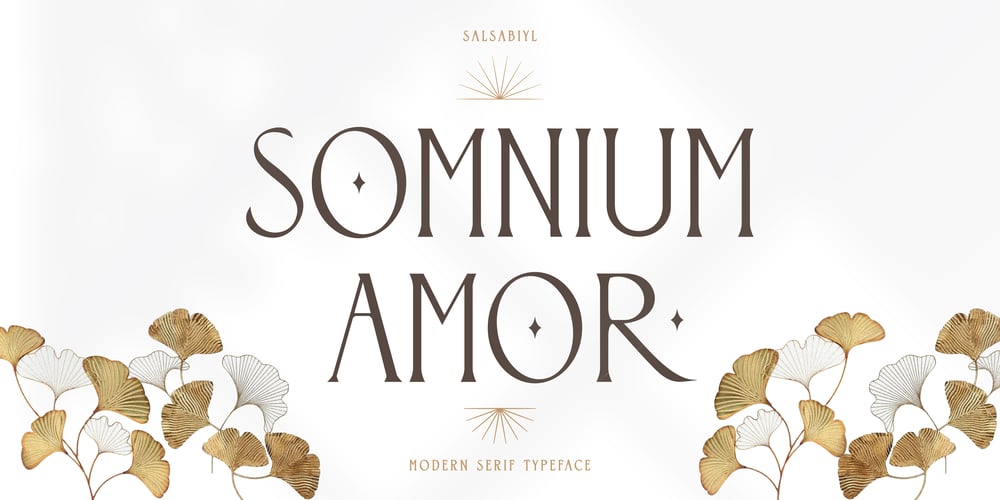
Somnium Amor Font Family was designed by Royhan Nashuh Salsabiyl and published by Salsabiyl Studios. Somnium Amor contains 1 styles and family package options. IntroducingSomnium Amor Modern Serif FontSomnium Amor is a modern and elegant serif font.This serif font is perfect for your next branding project.This serif font has plenty Characters and has Multilingual Support.Somnium Amor is perfect choice for people looking for clean, modern, minimalist, elegant, beauty design styles.Suitable for almost any graphic designs such as logo, branding materials, business cards, gift cards, t-shirt, cover, thumbnail, print, poster, photography, quotes .etc.